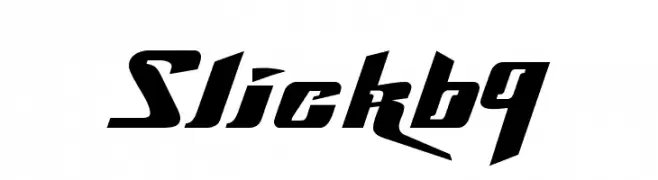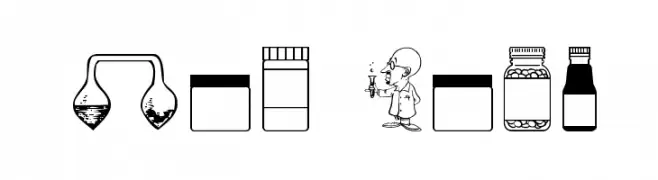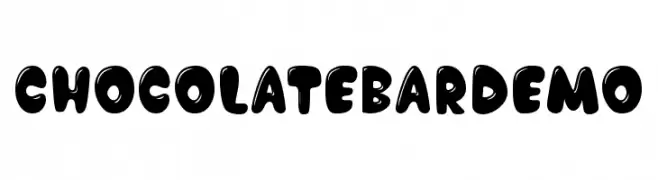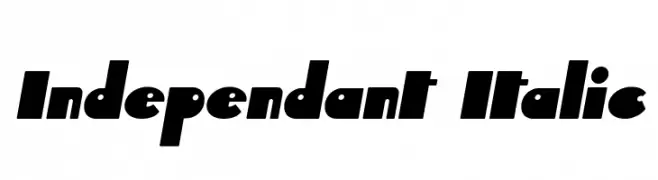
A bold, angular font with a futuristic and dynamic style.
A geometric, loopy font with interconnected lines and a modern, playful style.
An elegant script font with flowing, cursive letterforms and decorative swashes.
A classic serif font with elegant strokes and pronounced serifs.
A laboratory-themed dingbat font with science icons and cartoon scientists.
A decorative and geometric font with a futuristic and avant-garde style.
A bold, playful font with a 3D effect and cartoonish style.
A bold, geometric font with sharp angles and unique character shapes.